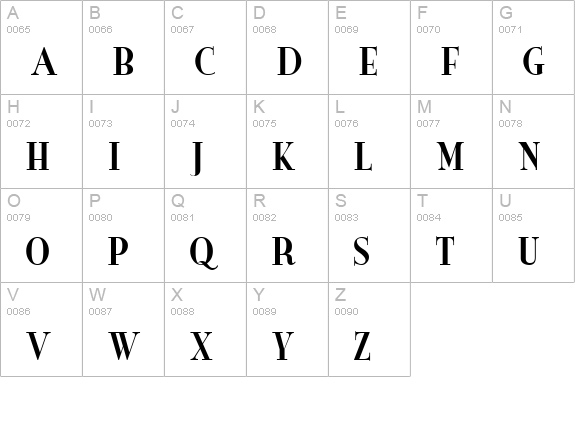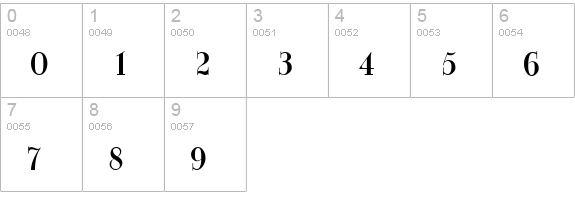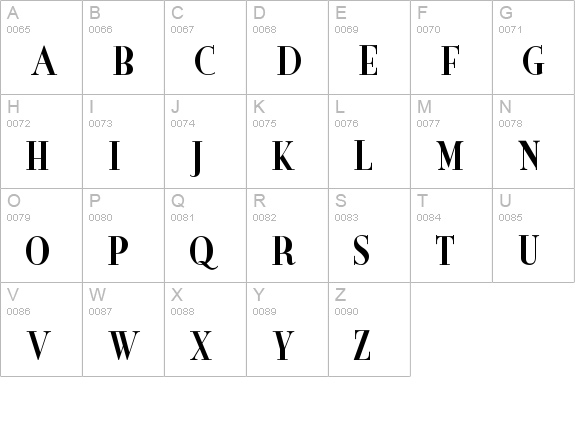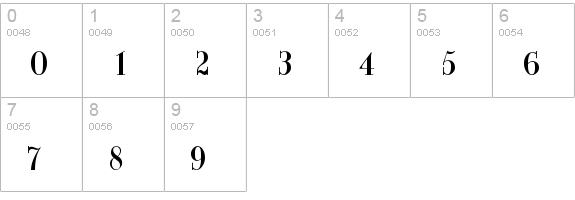
GrailNewCondensed Font Details
GrailNewCondensed font is a modern and stylish typeface that exudes sophistication and elegance. With its condensed design, it is perfect for creating sleek and professional-looking designs. This versatile font is suitable for a wide range of projects, from branding to editorial design. What makes GrailNewCondensed font even more appealing is that it is available for free download at FontsMarket.com. This means that you can easily access this high-quality font without any cost, making it a valuable addition to your font collection. Embrace the beauty and versatility of GrailNewCondensed font in your next design project and elevate your visuals to the next level.